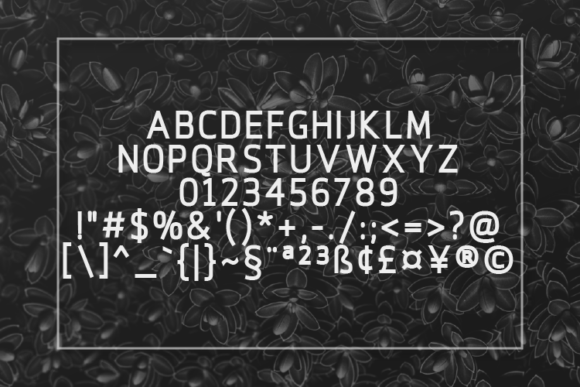
Introduction to Hunte Black Font
Have you ever been working on a creative project, pouring your heart and soul into a design, only to realize that the font just doesn’t quite fit? That’s where the perfect font comes in – one that elevates your work and gives it that extra oomph. For designers, finding the right font can be the difference between a good design and a great one.
Enter the Hunte Black Font, a high-quality design resource that’s sure to impress. With its clean and geometric look, this font is perfect for publishing, titles, books, magazines, and corporate design. And the best part? It’s available for free download, making it an accessible design resource for designers of all levels.
Whether you’re working on a personal project or a commercial one, the Hunte Black Font is a valuable addition to your design arsenal. Its transparent background and sleek design make it a versatile choice for any creative endeavor.
Key Features of Hunte Black Font
- Unique sans-serif font style with a sleek, modern aesthetic, perfect for contemporary designs
- Transparent background, allowing for seamless integration with various design elements
- Comprehensive character set, including uppercase and lowercase letters, numbers, and punctuation marks
- Designed to be highly legible and versatile, suitable for a wide range of creative projects and design resources
Honest Review: Hunte Black Font
As a designer, I’m always on the lookout for high-quality design resources to elevate my creative projects. The Hunte Black Font caught my eye recently, and I’m excited to share my thoughts on it.
- ✨ The font’s bold and sleek design is perfect for headings and titles.
- ✨ The Hunte Black Font is highly customizable, allowing me to adjust the size and style to suit my design needs.
- ✨ The transparent background makes it easy to integrate with other design elements.
- ⚠️ The font may not be suitable for body text due to its bold and condensed design.
- ⚠️ Some users may find the font’s design too edgy or modern.
Overall, I’m impressed with the Hunte Black Font. It’s a versatile and high-quality design resource that can add a touch of sophistication to any creative project. While it may have some limitations, I think it’s definitely worth considering for designers looking to elevate their designs.
Hunte Black Font is a high-quality design resource that offers a unique and stylish look for your creative projects. With its transparent background, it’s perfect for adding a touch of sophistication to your designs.
Tips for Getting the Most Out of Hunte Black Font
To get the most out of Hunte Black Font, try combining it with other design elements, such as bold colors and simple shapes. This will create a striking and eye-catching design.
Hunte Black Font is perfect for a variety of creative projects, including:
- Social media graphics and advertisements
2. Great Vibes Black
Great Vibes Black is a unique, script font suitable for creative projects that require a touch of elegance and sophistication. It features a transparent background, making it easy to layer with other design elements. When to use: Great Vibes Black is perfect for projects that need a stylish and refined look.